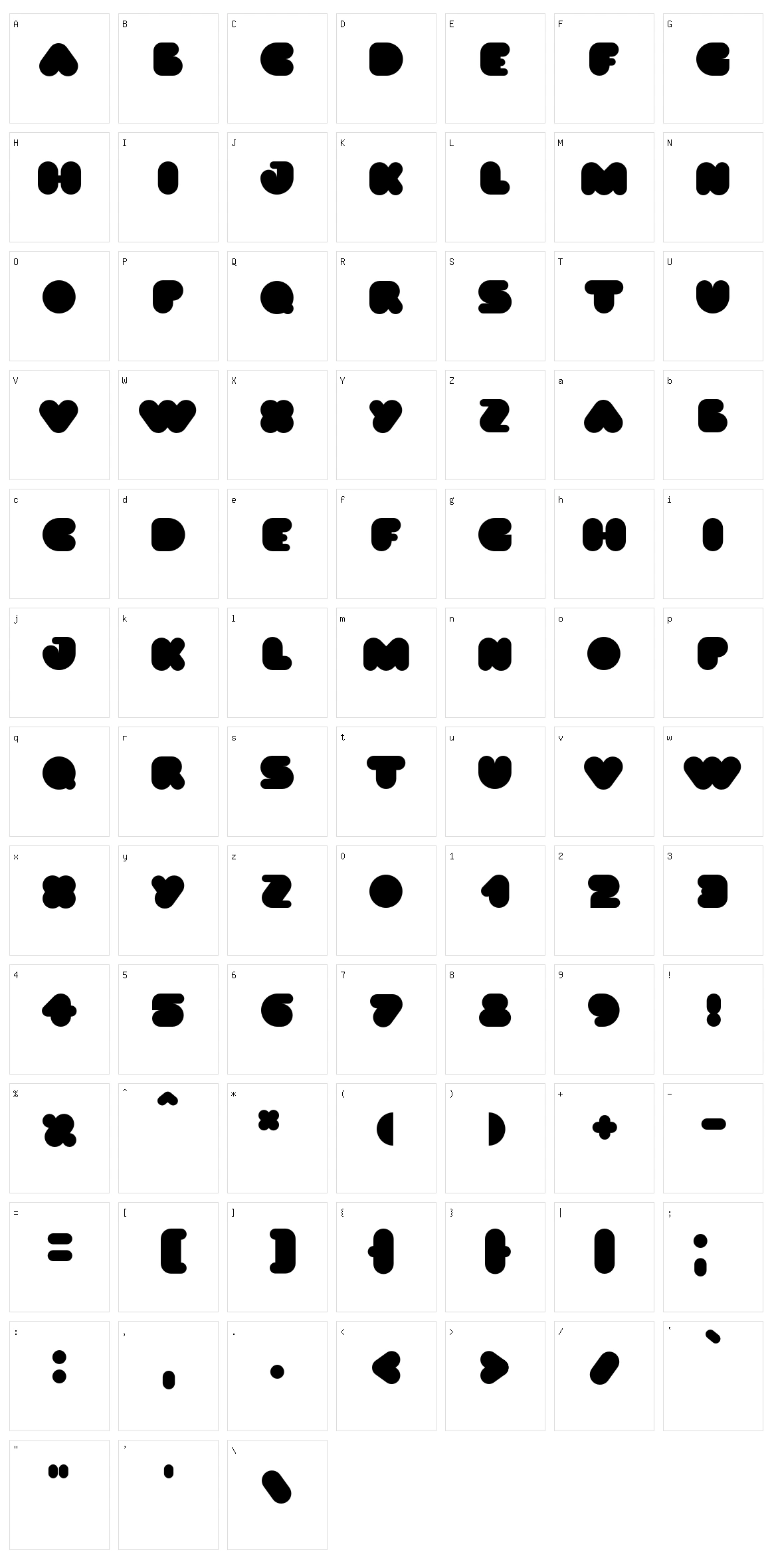
The free font Puff is carefully designed by roci, showcasing a thoughtful balance of creativity and usability and falls under the Groovy font style. When you download the ZIP file, it contains only 13.49 KB of font files, making it lightweight and quick to download. Please review the license details below to understand permitted usage and distribution rights. If license information is not available, we recommend using this font for personal projects only or contacting the author directly for commercial usage permissions.